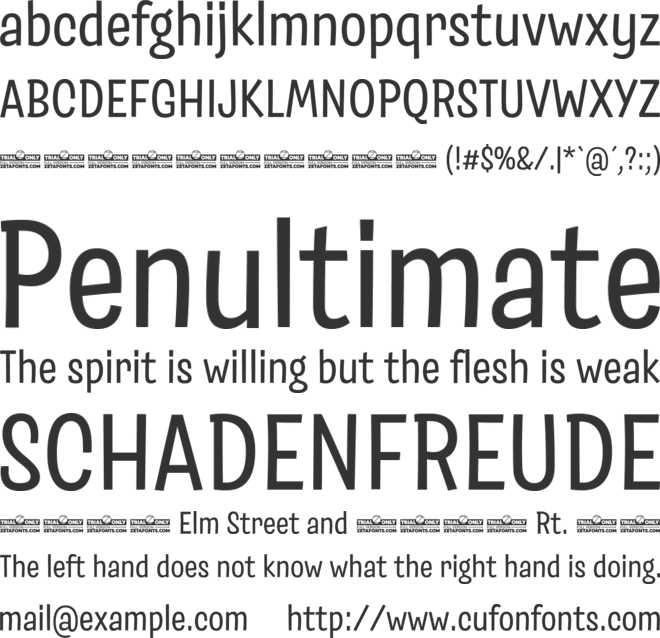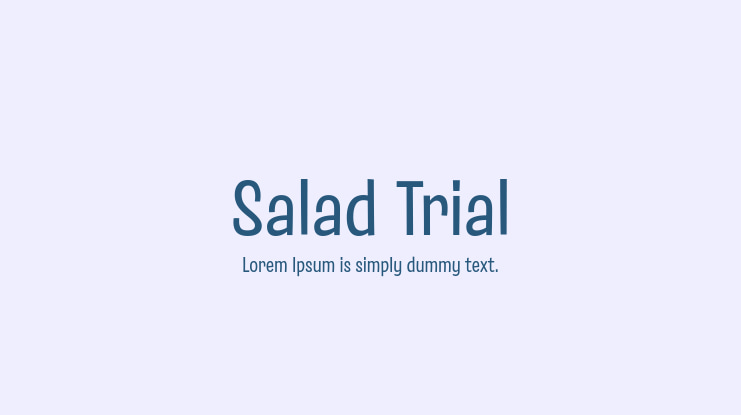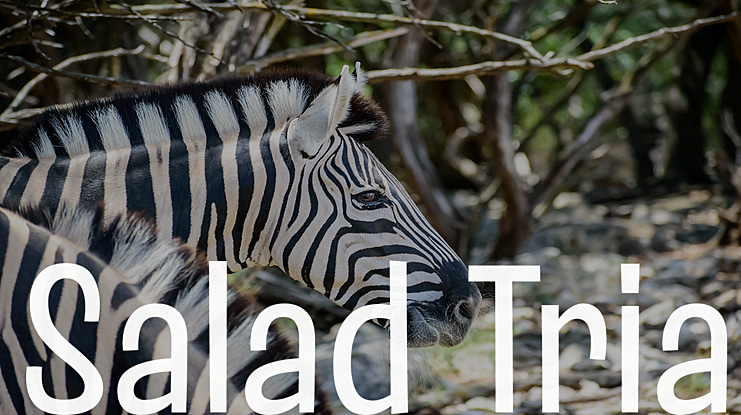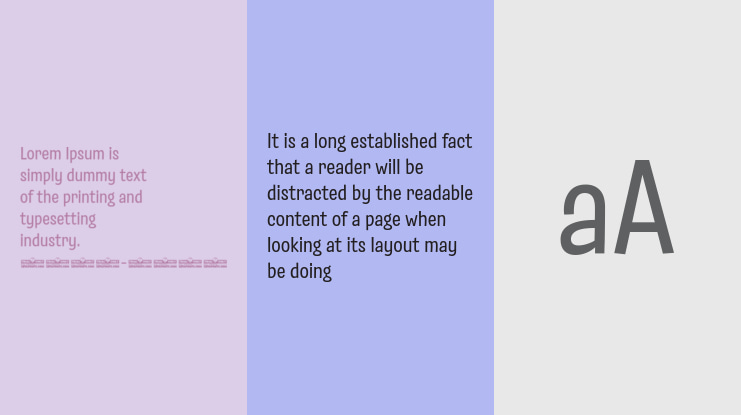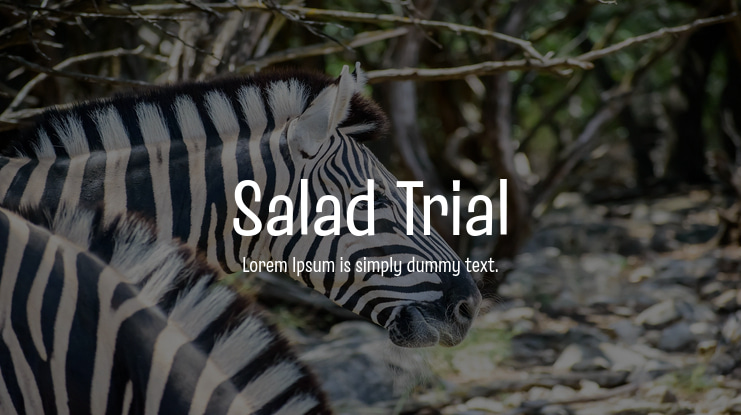
The island of Fuerteventura is more known for its white sand beaches and windsurf-friendly constant winds than for its typographic marvels. Still, it's on the walls of a ballroom next to its white-sand beaches that Debora Manetti found the hand-painted letterforms that she took as inspiration for her typeface Sala de Fiestas. The resulting font was a condensed sans serif full of curious details and a jumpy latino vibe that many years after still keeps its freshness and vernacular charme.
Francesco Canovaro took the original typeface as a starting point for a grand tour into signpainter aesthetics, developing a reboot of the original into a new type family: Salad. While being faithful to the original proportions and feeling, Salad provides extreme versatility through its five-weights range, its extended charset and its set of Open Type features including stylistic sets, alternates, positional numerals, small capitals and case sensitive forms.ย ย ย More...
While the roman family with its italic counterpart provide a good workhorse tool for informal branding, packaging and editorial projects, the interlocking and the inline weights add additional possibilities for display purpouses. This is enriched by the inclusion in the typeface of a set hand-drawn decorative dingbats that further complement the signpainting vibe of the family. All Zetafonts expertise in handmade lettering, typographic design and water sports has been put to test to assure Salad is the best typographical alternative to a a trip to Canary Islands!